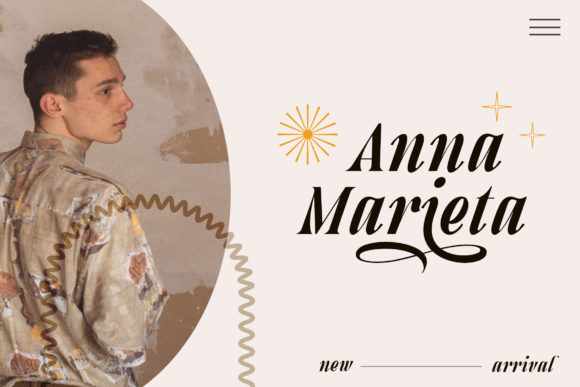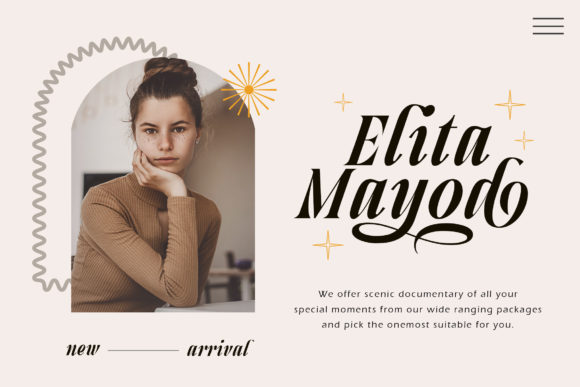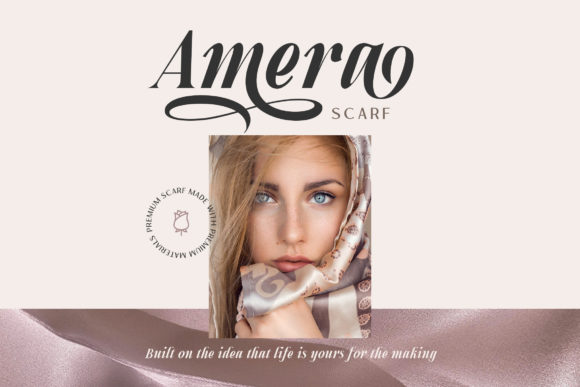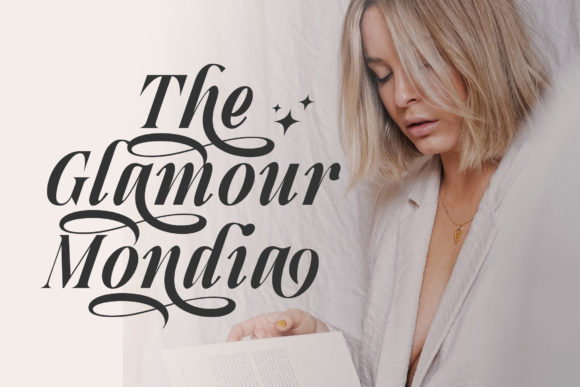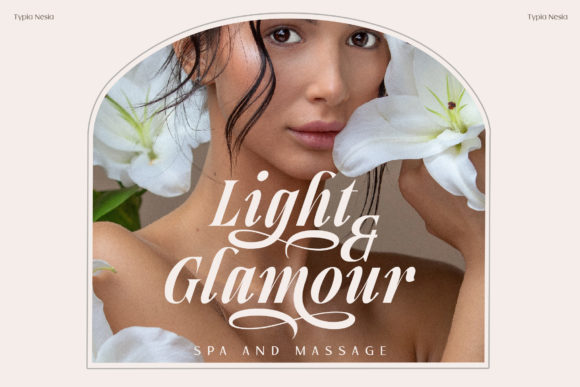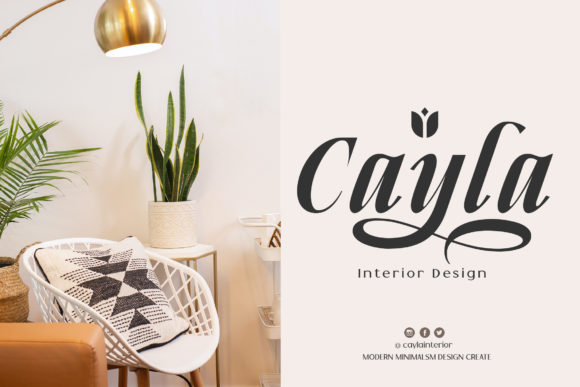
The Perfect Touch: Elevating Your Designs with Gold Breath Font
You know that moment when you’re brainstorming ideas for a special project, and suddenly, everything falls into place? That’s exactly what happens when you discover the perfect font – and for many designers, that perfect font is the Gold Breath Font.
With its elegant serif design, the Gold Breath Font adds a touch of sophistication and elegance to any design. Whether you’re creating wedding invitations, thank you cards, quotes, or logos, this beautiful font is sure to make a lasting impression. Its bold and distinct style makes it a valuable asset for designers looking to add a unique touch to their work.
As a designer, you know how crucial the right font can be in bringing your vision to life. That’s why the Gold Breath Font is a game-changer – it’s the perfect combination of style and functionality that will elevate your designs to the next level.
Gold Breath Font Key Features
- Size: The font family includes 6 styles, ranging from Light to Extra Bold, providing flexibility for various design needs.
- Unique Characteristics: The font features a unique blend of modern and vintage elements, with intricate details and ornate flourishes that evoke a sense of luxury and sophistication.
- Language Support: Gold Breath Font supports a wide range of languages, including Latin, Cyrillic, and Greek scripts, making it suitable for international design projects.
- Font Weight: The font family includes a range of font weights, from Light (100) to Extra Bold (800), allowing designers to achieve the perfect balance of readability and visual impact.
Gold Breath Font Review
Overall, I’m impressed with the unique and elegant design of the Gold Breath Font. It’s ✨ perfect for creating a luxurious and high-end feel in any project. The font’s intricate details and subtle golden undertones add a touch of sophistication and refinement.
The font is incredibly versatile and can be used in a variety of contexts, from wedding invitations and luxury branding to packaging and advertising materials. It’s also surprisingly legible, making it a great choice for body text and headlines.
- ✨ Unique and elegant design
- ✨ Perfect for creating a luxurious and high-end feel
- ✨ Incredibly versatile
- ✨ Surprisingly legible
Limitsations:
One of the main limitations of the Gold Breath Font is its ✨ potential for overuse. The font’s luxurious feel can quickly become overwhelming if used too frequently, so it’s essential to use it sparingly and balance it with other fonts.
Overall, I’m excited to see how designers will use the Gold Breath Font to create stunning and sophisticated designs.
Tips for Getting the Most Out of Gold Breath Font
To get the most out of Gold Breath Font, consider the following tips:
- Use the font in bold or italic styles to add emphasis.
- Combine Gold Breath Font with other fonts to create a unique look.
- Experiment with different font sizes to create visual interest.
Gold Breath Font is commonly used in:
- Business branding and marketing materials.
- Event signage and graphics.
Alternatives to Gold Breath Font
Great Vibes Font is a beautiful, elegant script font. It is perfect for creating a luxurious and high-end feel for your designs. It is ideal for use in branding, packaging, and advertising materials. When to use: Luxury brands, high-end products, and elegant designs.
Great Vibes Font compares to Gold Breath Font in terms of its elegant and luxurious feel. However, Great Vibes Font has a more refined and sophisticated look, making it suitable for high-end designs. Gold Breath Font has a bolder and more dramatic feel, making it more suitable for use in bold and eye-catching designs.